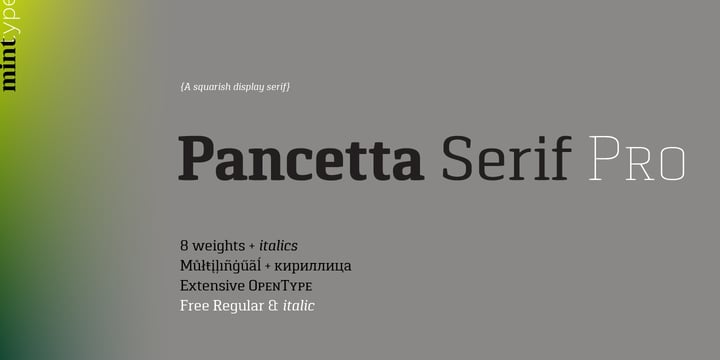
About Pancetta Serif Pro Font Family
Pancetta Serif Pro is a squarish serif typeface – a natural companion to Pancetta Pro. Its skeleton is a blend of modern serif and slab faces, featuring prominent obtuse pillow-shaped serifs. Pancetta Serif Pro comes in 8 weights with real italics, with extensive language support and Cyrillic script, and enriched with many OpenType features.